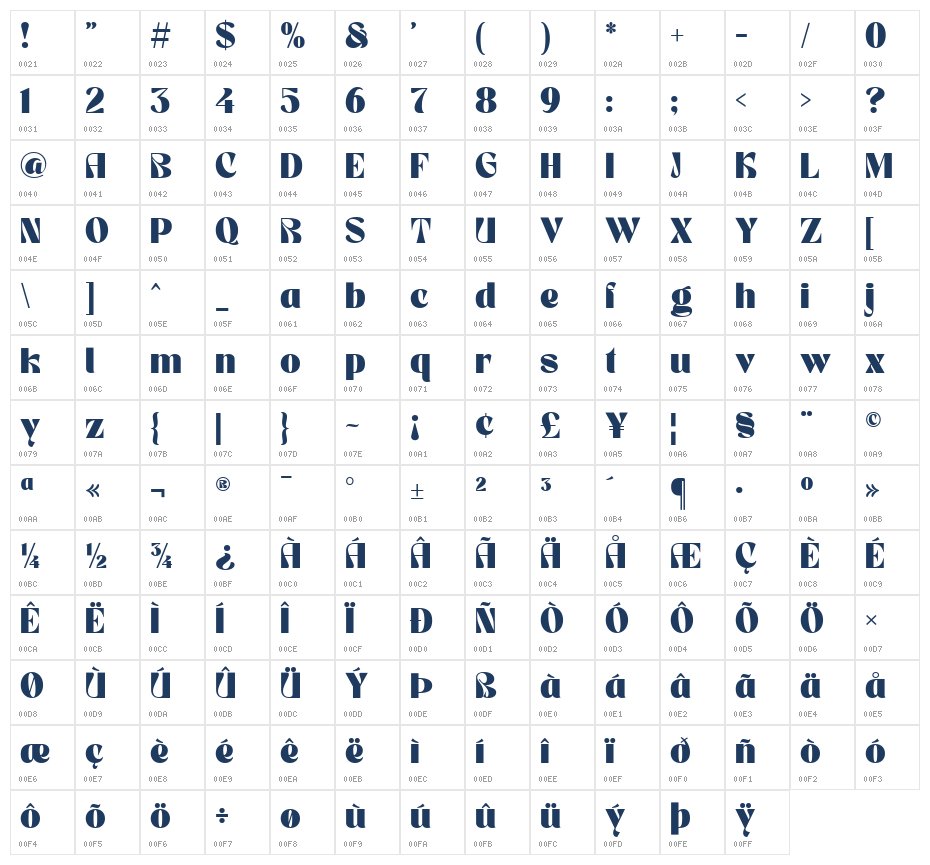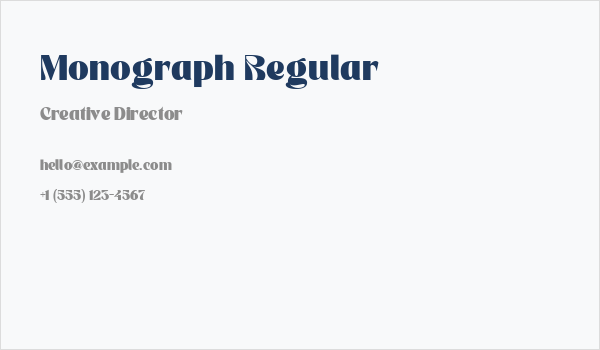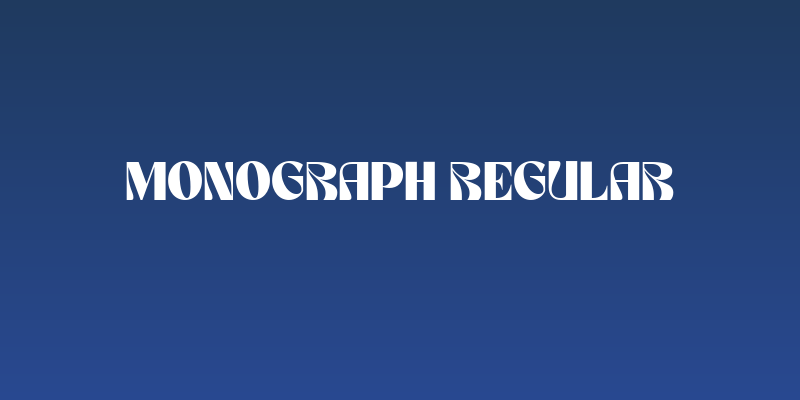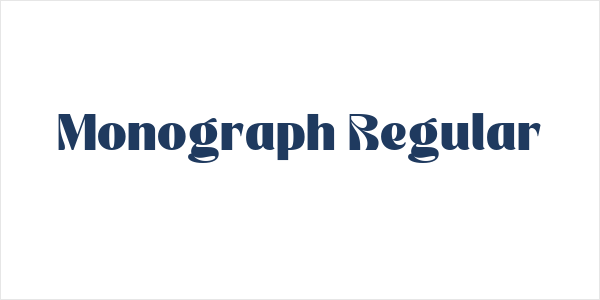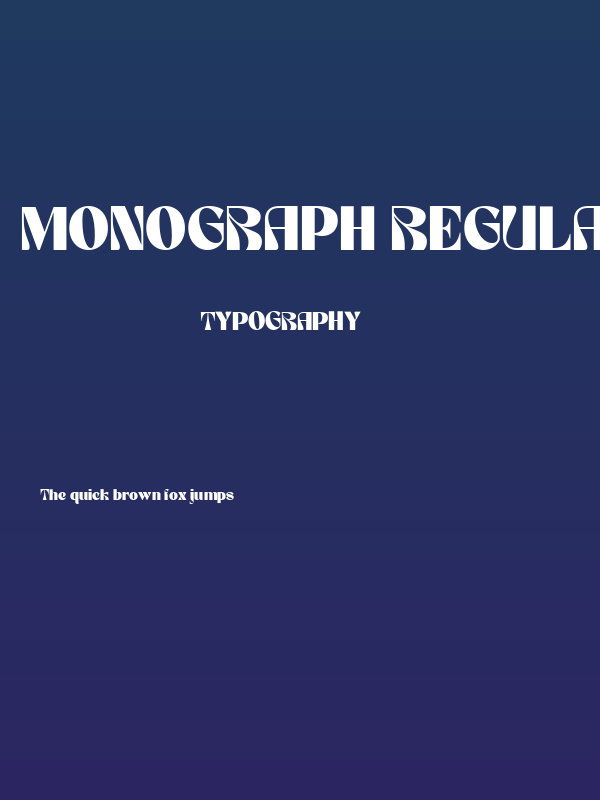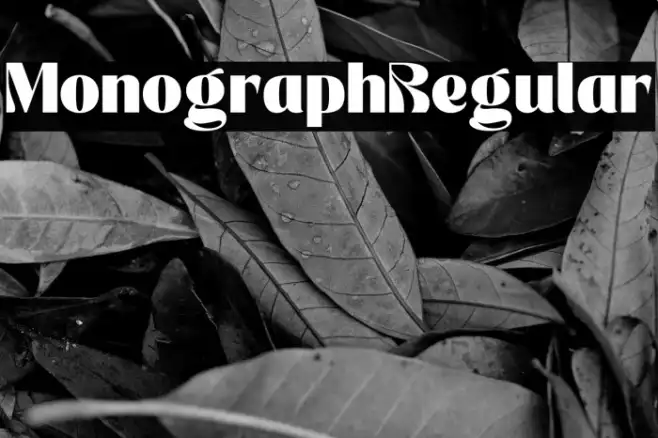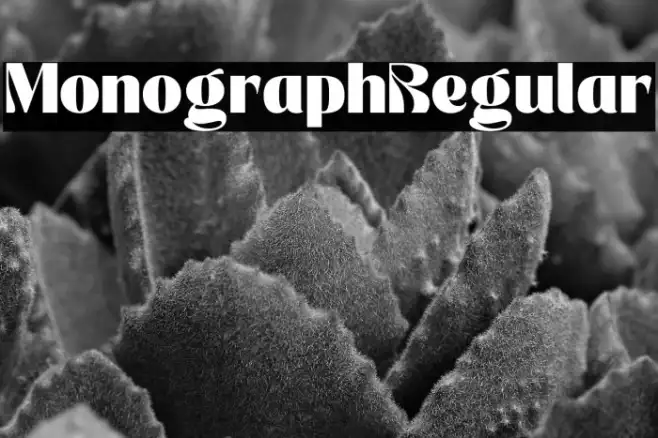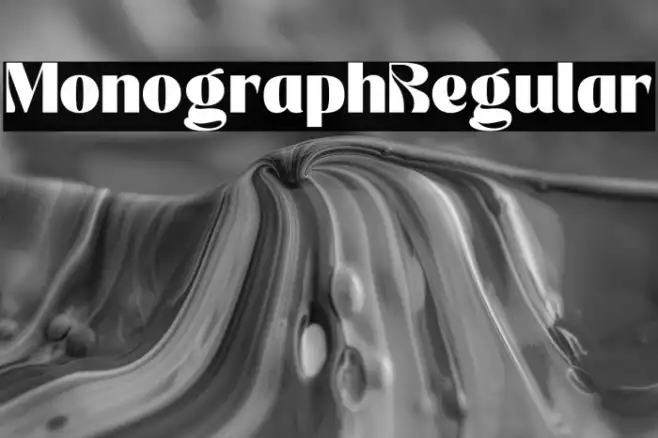
Monograph Regular Font
Monograph Regular Description
Bold, decorative serif font with high contrast and unique stylized elements, featuring thick and thin strokes with distinctive cuts and curves.
| Overall Style | Vintage, Decorative |